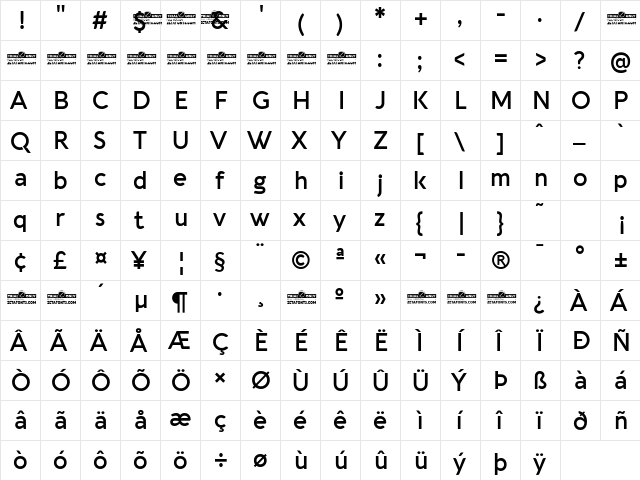
Aquawax Pro Trial DemiBold
| Foundry | Francesco Canovaro |
| Designer | Francesco Canovaro |
Design Context for Aquawax Pro Trial Typeface
Aquawax Pro Trial offers clean, dependable letterforms without strong stylistic allegiance, making it a practical choice for designers who need flexibility. Its bold stroke weight gives it real presence on the page.